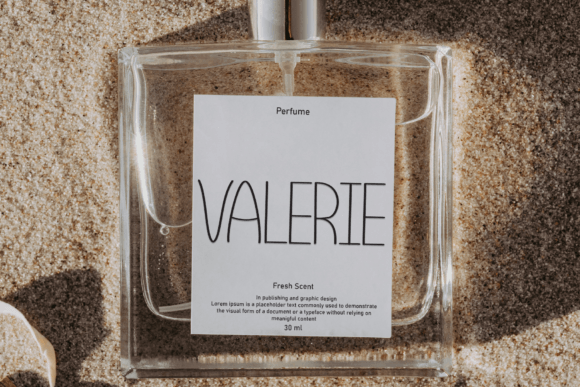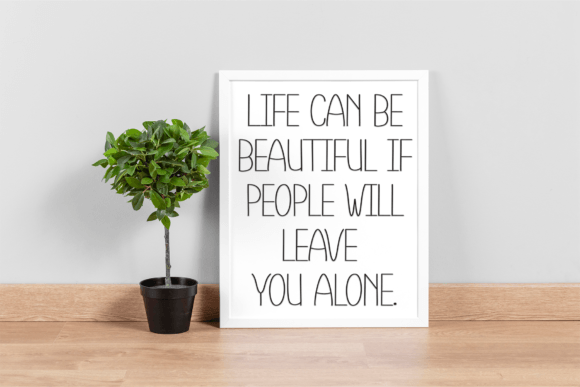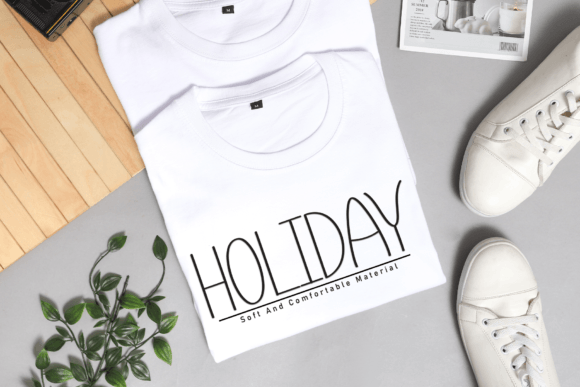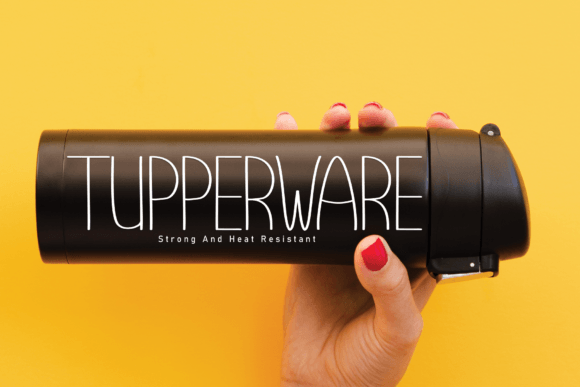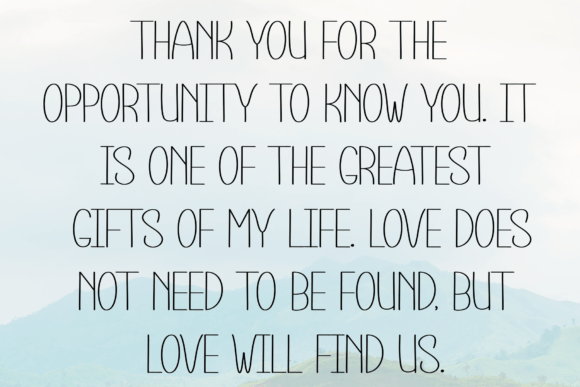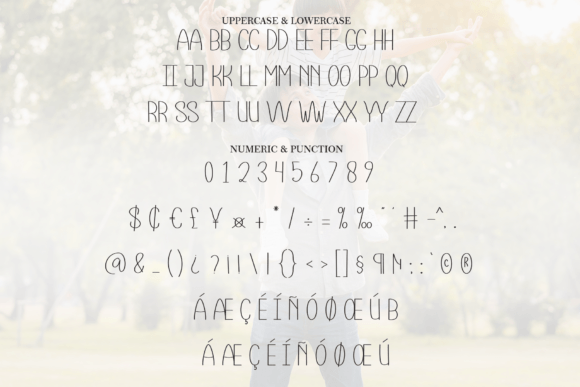
The Perfect Font for a Joyful Touch
Have you ever been brainstorming ideas for a special project, and the perfect font suddenly pops into your mind, making everything fall into place? For designers, this moment is a thrill – and it’s exactly what happens when you discover the Cheerful Font. This sweet and friendly handwritten display font is a game-changer for adding a fun and playful touch to your designs.
Whether you’re creating wedding invitations, cards, or any other design that needs a little extra joy, Cheerful Font is the perfect choice. Its cute and fun style is sure to put a smile on your clients’ faces and make your designs stand out. As a designer, you know how valuable it is to have a versatile font that can add personality to any project – and that’s exactly what the Cheerful Font offers.
Cheerful Font Key Features
- Font Family: Cheerful Font is a unique, hand-drawn font family designed to evoke feelings of happiness and optimism.
- Character Set: Includes a comprehensive character set, including uppercase and lowercase letters, numbers, and punctuation marks.
- Language Support: Supports multiple languages, including English, Spanish, French, German, and many more.
Designer Review: Cheerful Font
As a designer, I was excited to dive into the Cheerful Font and see what it had to offer. Here’s my honest review:
- Playful personality: Cheerful Font has a unique, whimsical feel that’s perfect for projects that need a touch of fun and energy.
- Clear readability: The font is well-designed for body text, with a clear and easy-to-read structure that makes it perfect for long blocks of text.
- Customization options: Cheerful Font offers a range of customization options, including font sizes, colors, and styles, giving designers the flexibility they need to create unique designs.
- Limited use in formal settings: Cheerful Font may not be the best choice for formal or professional projects, as its playful personality may come across as unprofessional.
- May not be suitable for small text: The font’s bold and playful style can make small text difficult to read, especially in low-light environments.
Overall, Cheerful Font is a great choice for designers who need a fun and energetic font for projects that require a playful touch. However, it may not be the best choice for formal or professional projects, or for small text.
Tips for Getting the Most Out of Cheerful Font
For best results, use the Cheerful font in combination with bright and playful colors. Experiment with different font sizes and styles to create visual interest. Use the font in headings and titles to create a consistent brand identity.
The Cheerful font is ideal for creating playful and eye-catching designs for children’s products, party invitations, and social media graphics. It’s also great for creating modern and minimalist designs for websites and branding materials.